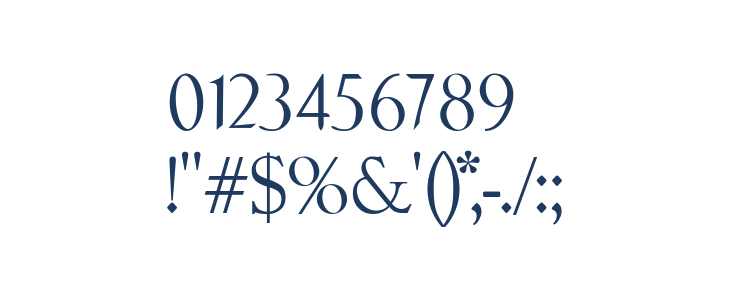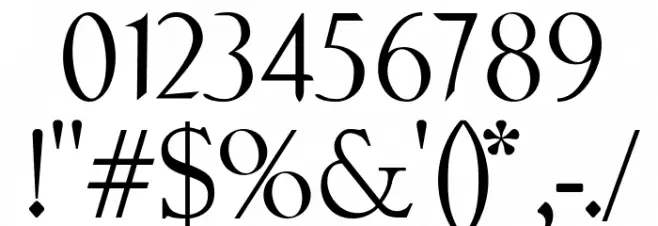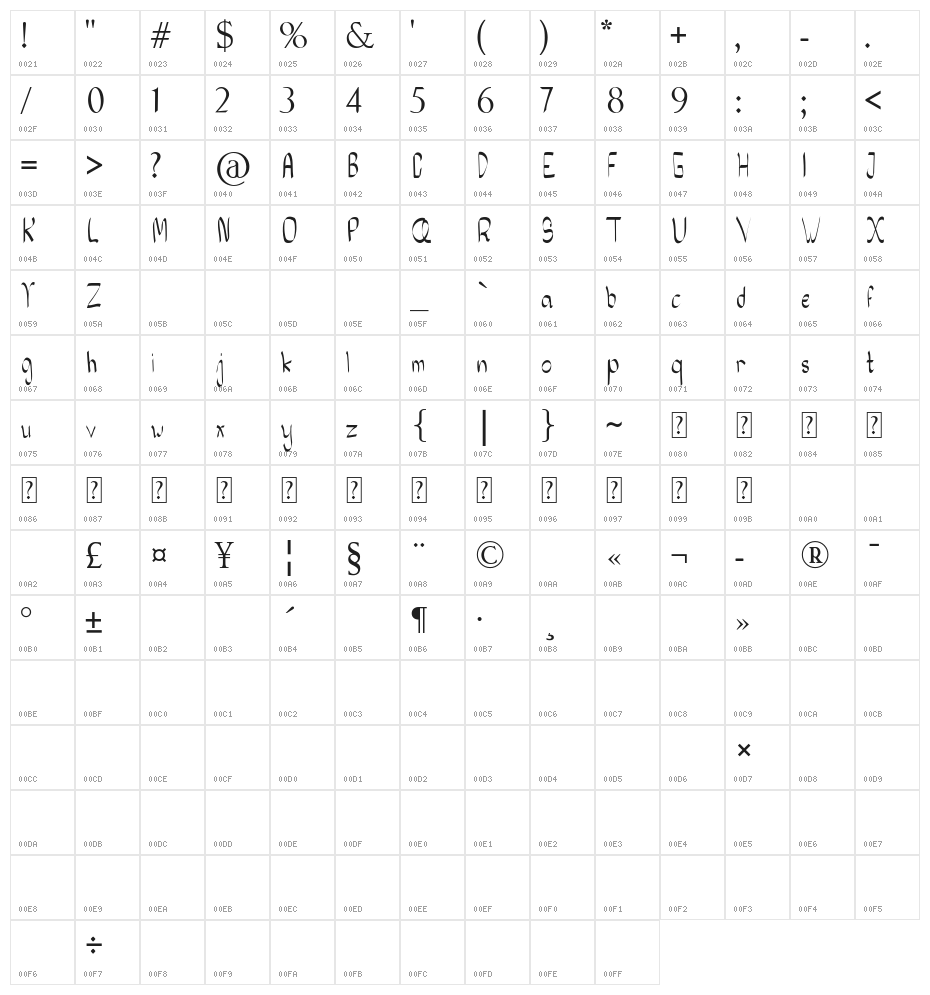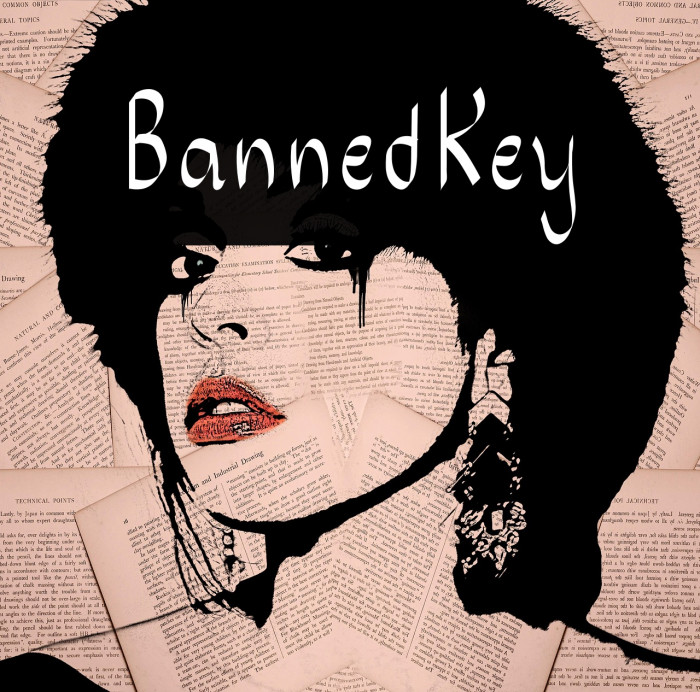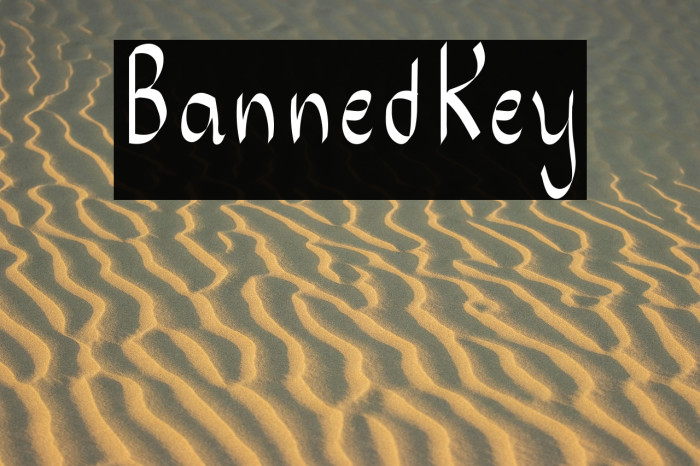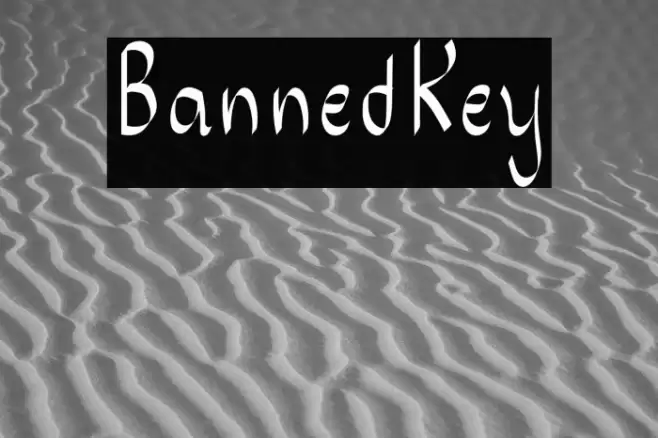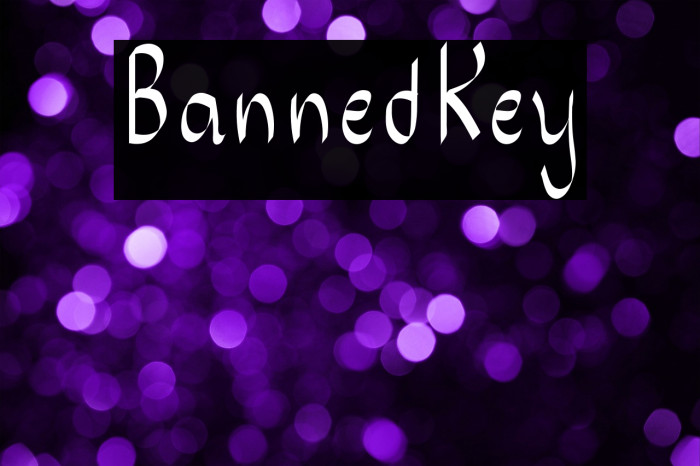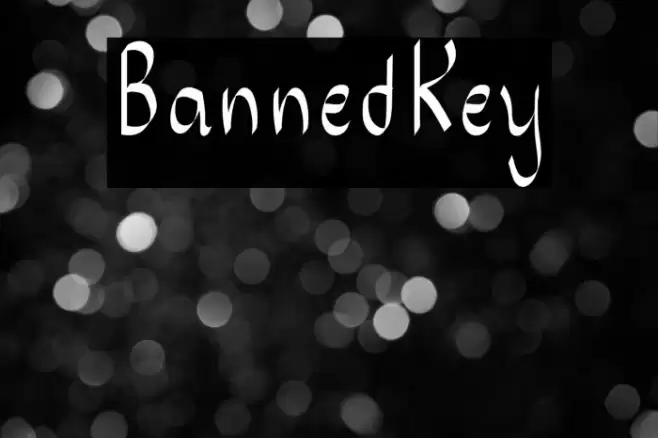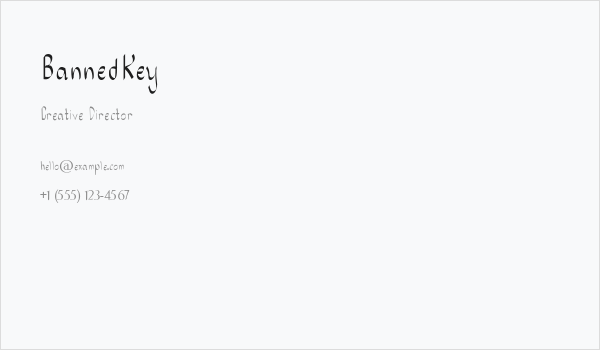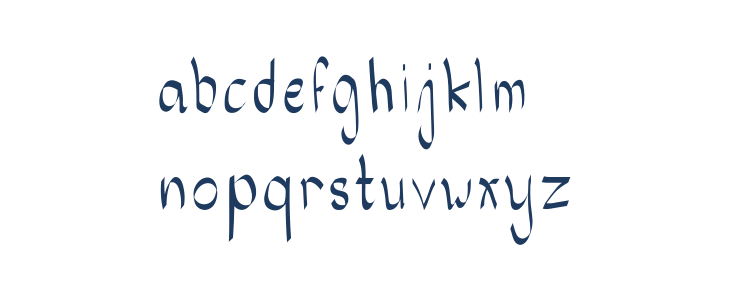
BannedKey Font
BannedKey Description
This font features a unique and artistic style with a playful and whimsical touch. The characters are slightly irregular, giving them a hand-drawn appearance that adds personality and charm. The uppercase letters are bold and distinctive, while the lowercase letters maintain a consistent flow with slight variations in stroke width. The numbers are clear and easy to read, complementing the overall design. Special characters are creatively integrated, maintaining the font's quirky aesthetic. This font is ideal for projects that require a fun and informal look, such as children's books, creative posters, or playful branding.
| Overall Style | Playful, Artistic |
| Proposed Projects | Children's books, creative posters, playful branding, informal invitations. |